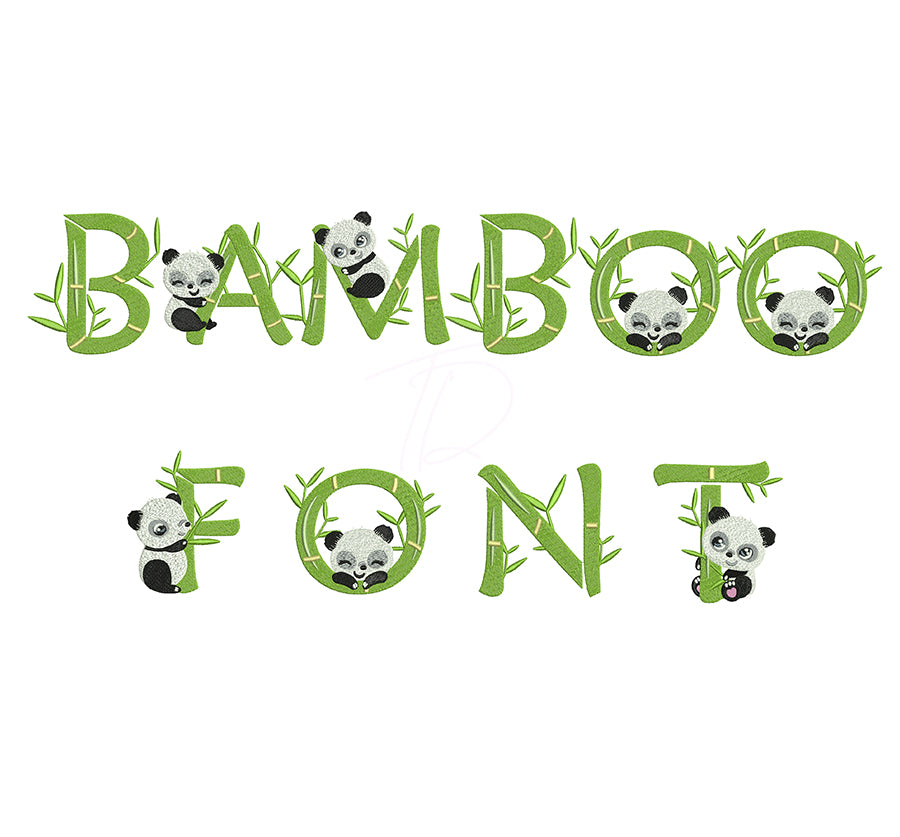
Bamboo Panda embroidery font. Embroidery alphabet with bamboo Panda. Cute font for embroidery.
Bamboo Panda embroidery font.
This font comes with letters in 3 sizes, A-Z (Upper case)